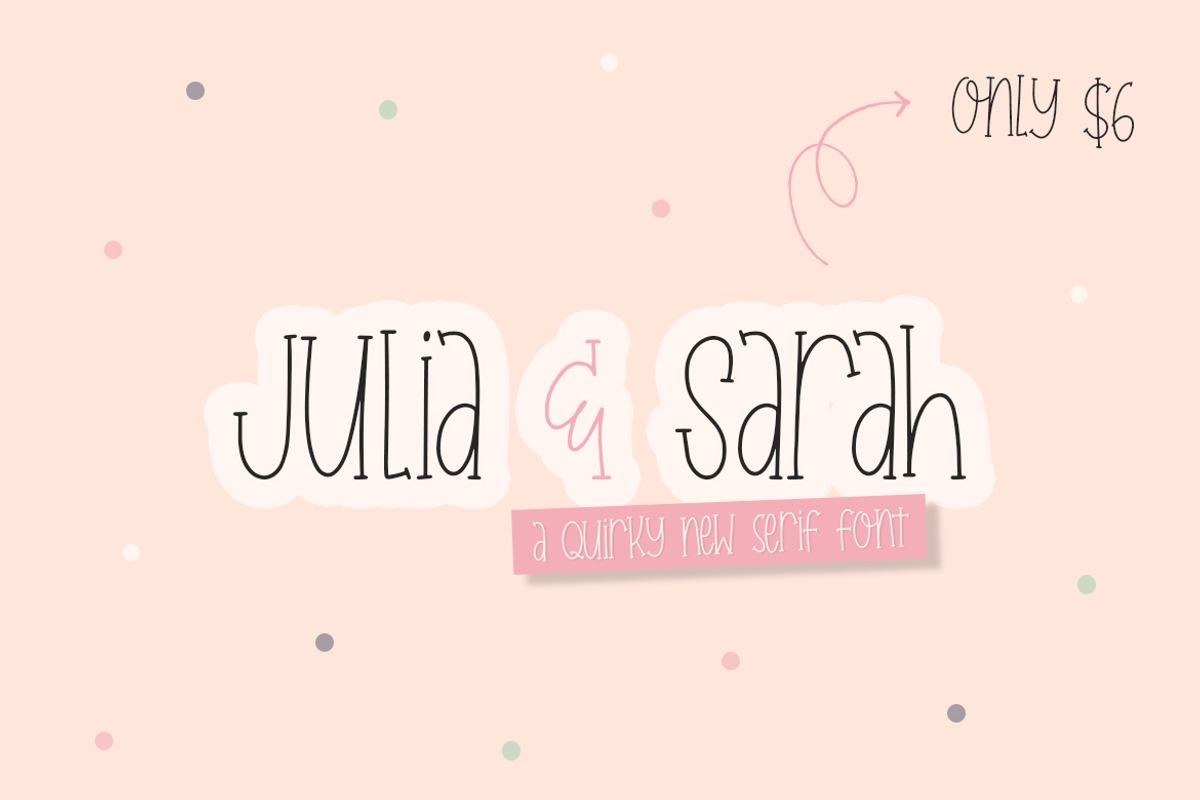
Julia & Sarah Font Free Download
Julia & Sarah Font Free Download is a beautiful and elegant handwritten typeface that blends feminine charm with modern sophistication. Perfect for wedding invitations, branding, logos, social media graphics, and stationery design, this font delivers a personal, romantic touch that feels both refined and approachable.
With flowing strokes and graceful curves, Julia & Sarah adds style and emotion to every letter. It's ideal for creators who want their designs to feel soft, stylish, and full of personality. You’re welcome to download and test it out for personal use, but a commercial license is required for any professional or revenue-generating projects.
Bring a touch of elegance to your work with Julia & Sarah Font Free Download and elevate your designs with handwritten warmth and sophistication. Whether you’re working on a bridal brand or a delicate logo, this font is a must-have for your creative collection.